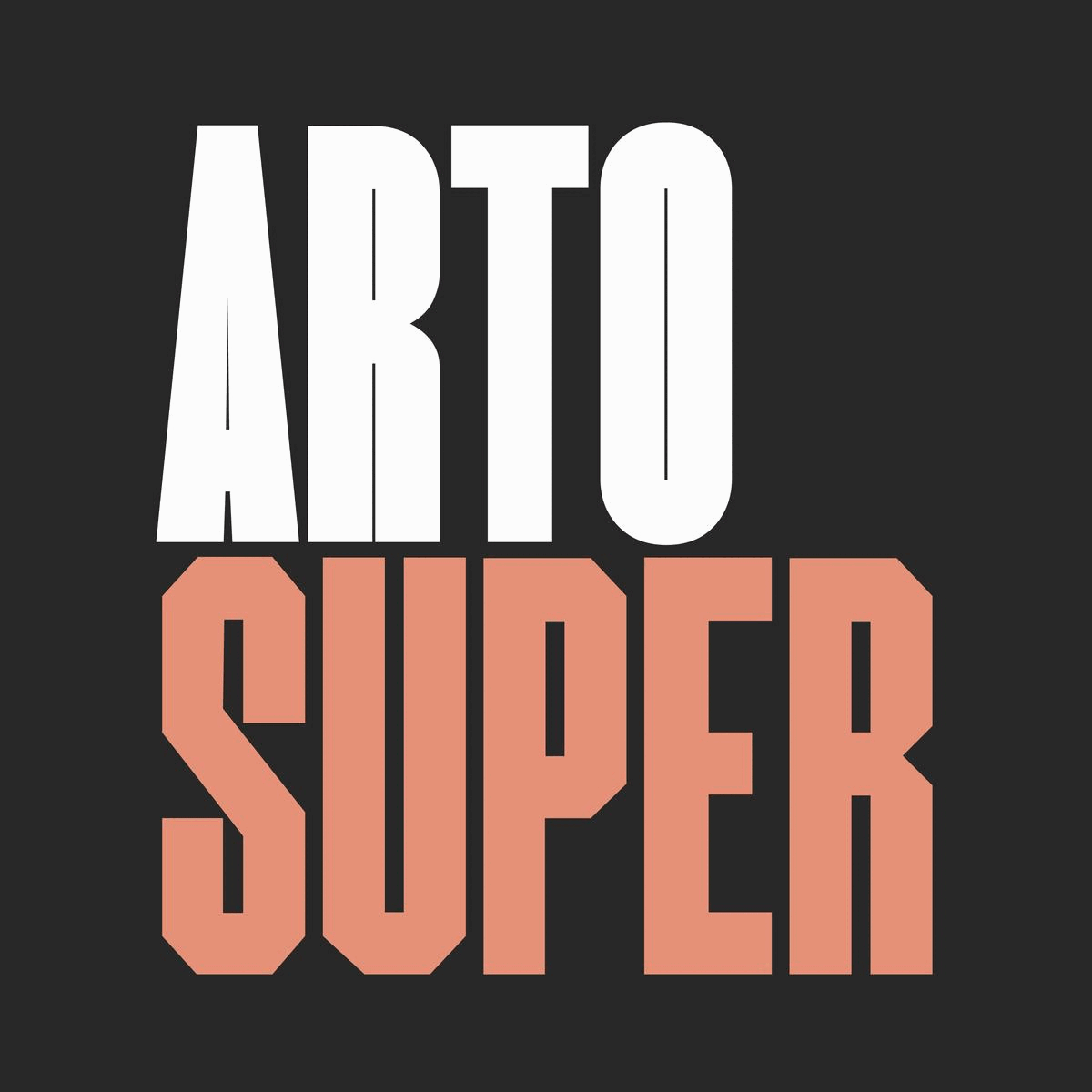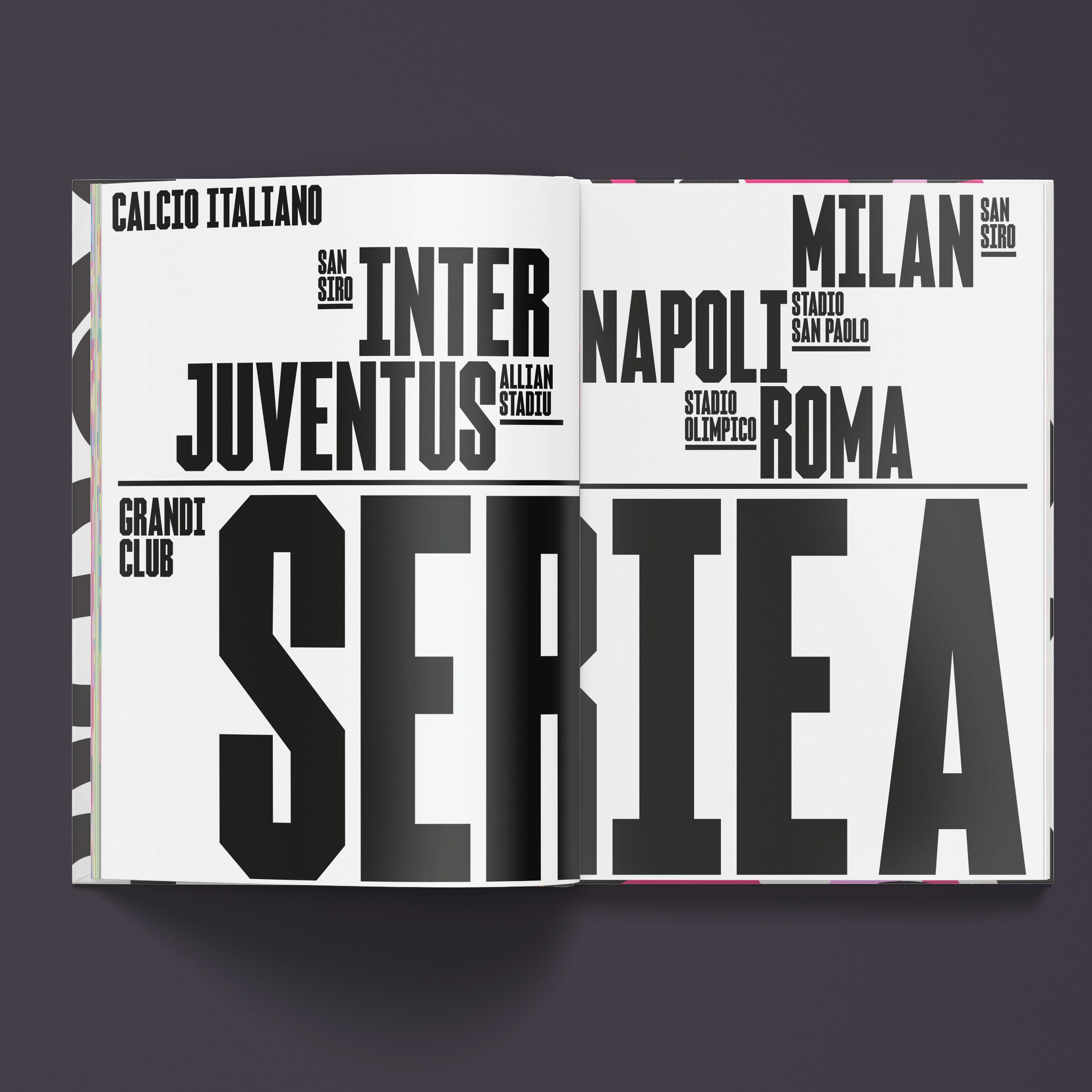
Arto is a unique super-condensed typeface, ideal for branding projects and editorial headlines. The super-tight kerning gives this family a distinctive retro feel. The full family is a go-to font for making projects distinctive, allowing projects to stand out.